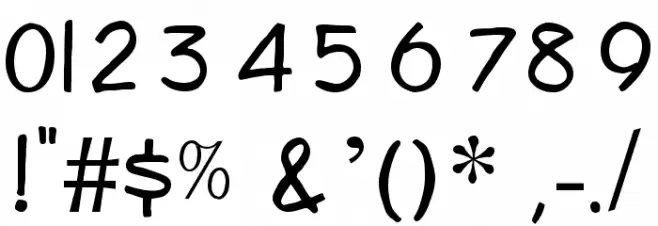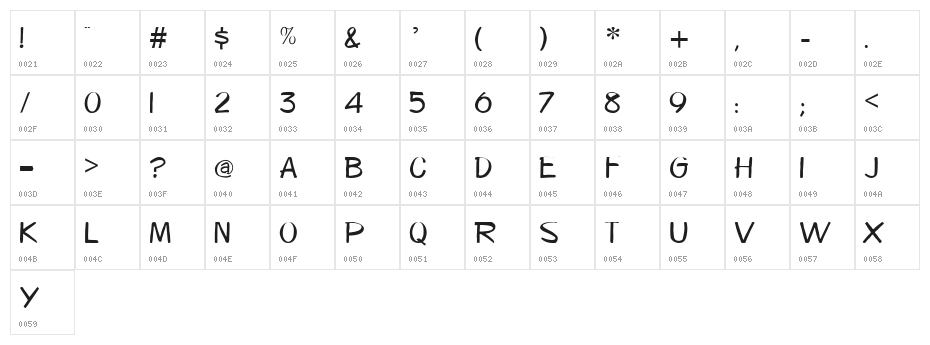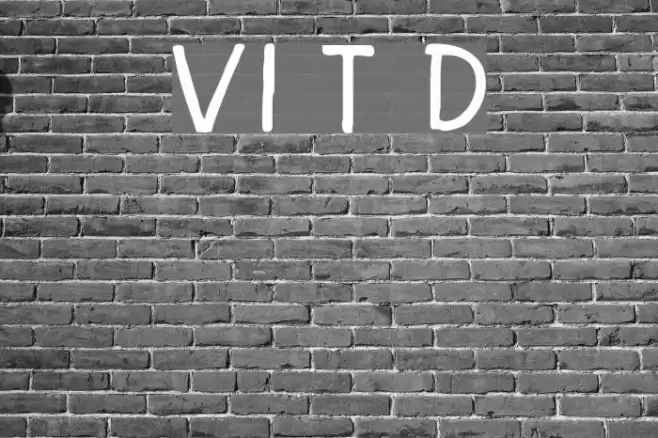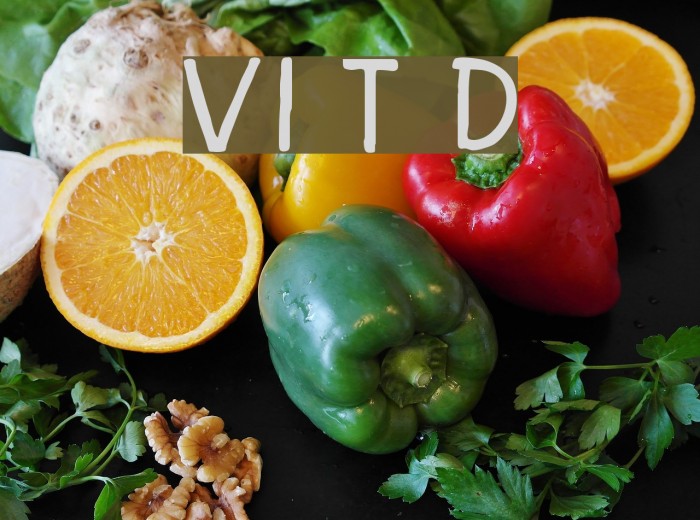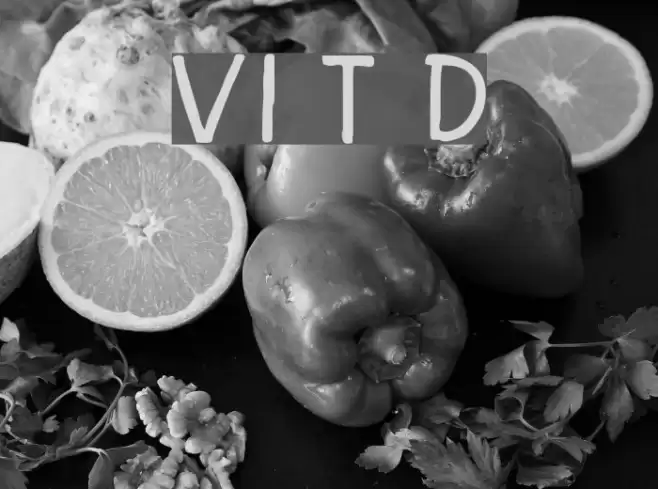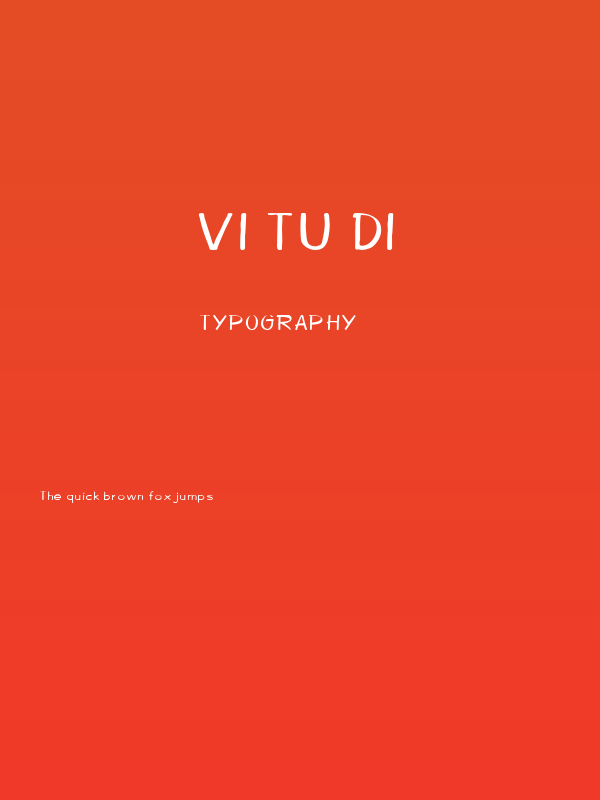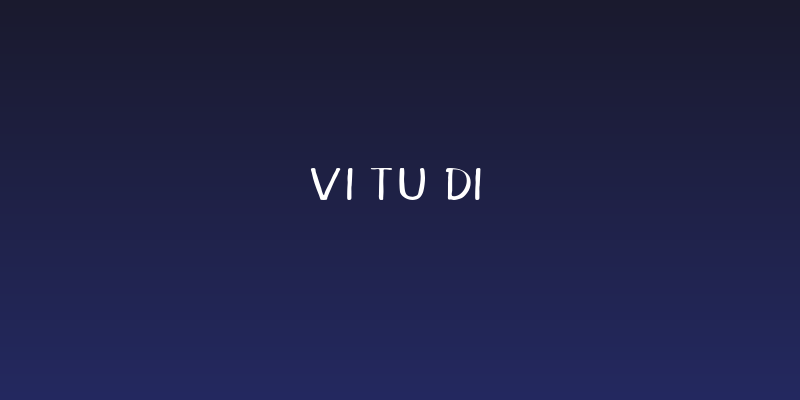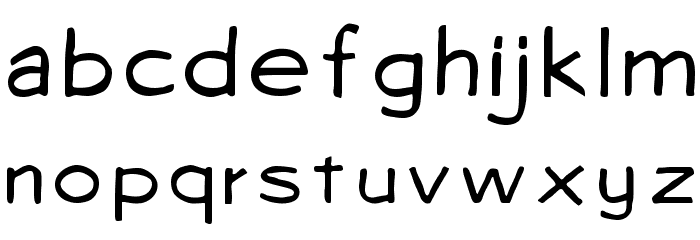
VI Tu Di Font
VI Tu Di Description
This font features a playful and casual handwritten style, characterized by its rounded and slightly irregular letterforms. The uppercase letters are bold and prominent, while the lowercase letters maintain a consistent flow with a friendly appearance. Numbers and special characters are crafted with the same informal touch, making them easily readable yet distinct. The overall design exudes a sense of approachability and creativity, suitable for projects that require a personal and informal tone. The strokes are consistent in width, providing a uniform look across all characters.
| Proposed Projects | Ideal for children's books, casual invitations, greeting cards, and creative branding. |